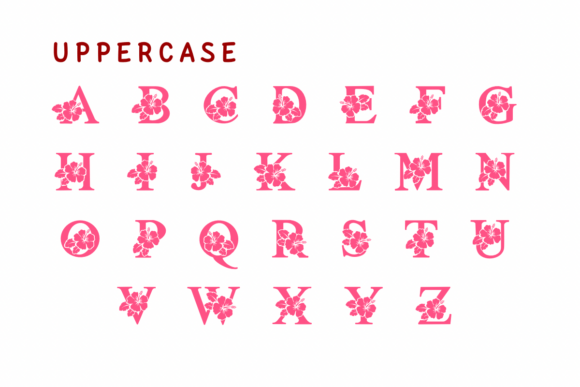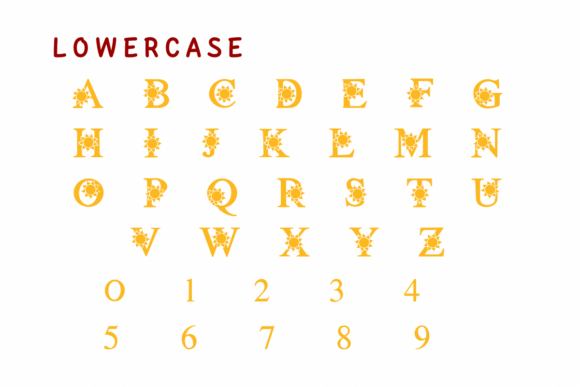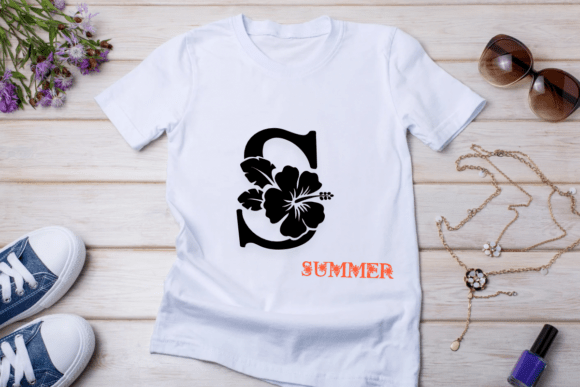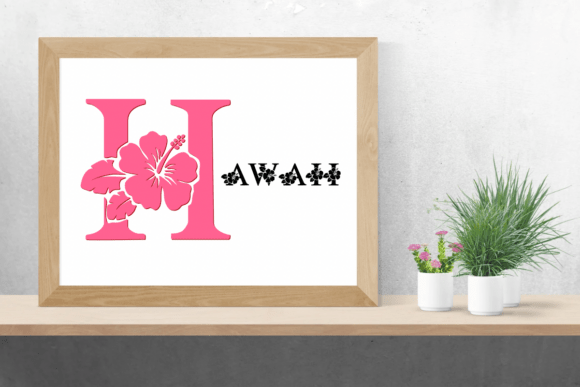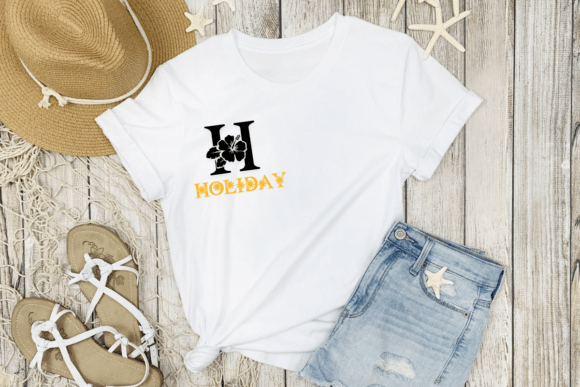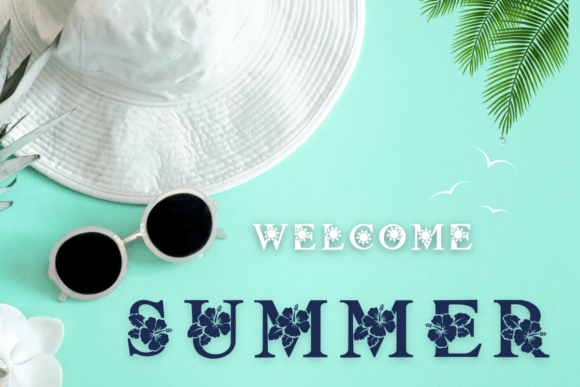
Hawaii Summer Font: A Decorative Delight for Designers and Crafters
Are you looking for a font that captures the essence of a tropical paradise? Look no further than the Hawaii Summer Font! This decorative font is perfect for designers and crafters who want to add a touch of aloha spirit to their projects. In this article, we’ll dive into the features and uses of the Hawaii Summer Font, and explore how you can incorporate it into your creative endeavors.
What is Hawaii Summer Font?
Hawaii Summer Font is a decorative font designed to evoke the feeling of a Hawaiian summer. With its playful and carefree vibe, this font is perfect for projects that require a touch of tropical flair. The font is versatile and can be used for a variety of applications, from personal to commercial.
Features of Hawaii Summer Font
So, what makes Hawaii Summer Font so special? Here are some of its key features:
- Decorative style: The font boasts a unique and decorative style that’s perfect for making a statement.
- Playful vibe: The font’s playful vibe is sure to add a touch of fun and whimsy to your projects.
- Versatile: Whether you’re creating a personal project or a commercial one, Hawaii Summer Font is suitable for a wide range of applications.
Uses of Hawaii Summer Font
So, how can you use Hawaii Summer Font in your projects? The possibilities are endless! Here are some ideas to get you started:
- Note-taking: Add a touch of personality to your notes with Hawaii Summer Font. Perfect for journaling, to-do lists, or meeting notes.
- Diary writing: Make your diary entries more visually appealing with this decorative font.
- Greeting cards: Create beautiful and unique greeting cards for special occasions like birthdays, weddings, or holidays.
- Banners and signs: Use Hawaii Summer Font to create eye-catching banners and signs for events, parties, or promotions.
- Social media posts: Add a touch of tropical flair to your social media posts and make them stand out.
- Mugs and ceramics: Design personalized mugs, plates, and other ceramics with Hawaii Summer Font.
- T-shirts and apparel: Create unique and stylish apparel with this decorative font.
- Stationery and paper goods: Use Hawaii Summer Font to create custom stationery, notebooks, and paper goods.
Tips for Using Hawaii Summer Font
Here are some tips to help you get the most out of Hawaii Summer Font:
- Experiment with colors: Try pairing the font with bright and bold colors to really make it pop.
- Mix and match: Combine Hawaii Summer Font with other fonts to create a unique and visually appealing design.
- Keep it simple: Don’t be afraid to keep your design simple and let the font be the star of the show.
In conclusion, Hawaii Summer Font is a versatile and decorative font that’s perfect for designers and crafters who want to add a touch of tropical flair to their projects. With its playful vibe and decorative style, this font is suitable for a wide range of applications, from personal to commercial. Whether you’re creating greeting cards, social media posts, or apparel, Hawaii Summer Font is sure to bring a smile to your audience’s face. So why not give it a try and see what amazing creations you can come up with?
Hawaii Summer Font is a unique and decorative font that’s sure to add a touch of tropical flair to your projects. Whether you’re a designer, crafter, or simply someone who loves to create, this font is perfect for anyone who wants to bring a little bit of aloha spirit into their work. So don’t hesitate to give it a try and see what amazing creations you can come up with!